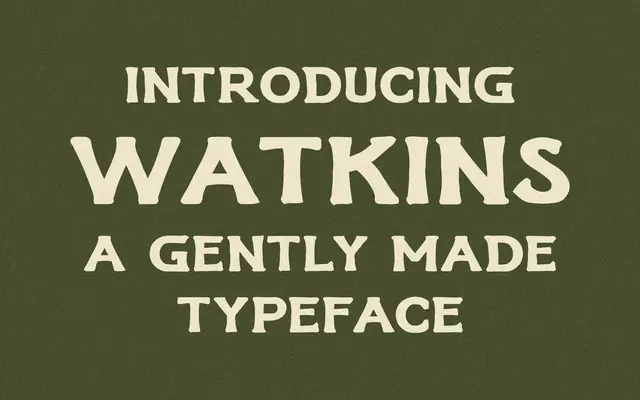
Watkins
Watkins specimen from Taylor Penton
A single-weight serif with traditional proportions and a softened texture suited to branding and packaging work.
Watkins ships as a single Regular weight with 150 glyphs covering basic Latin and a limited set of accented characters. The design sits between classical serif conventions and a lighter, more approachable register, making it practical for logos, packaging and short-form display text. Coverage is modest and there is no italic or additional weight, so it works best as a display or headline face rather than extended body copy.
The page describes Watkins as rooted in traditional forms with a softness that reads as modern, pointing to a transitional or contemporary serif with humanist warmth rather than strict oldstyle or neoclassical geometry.